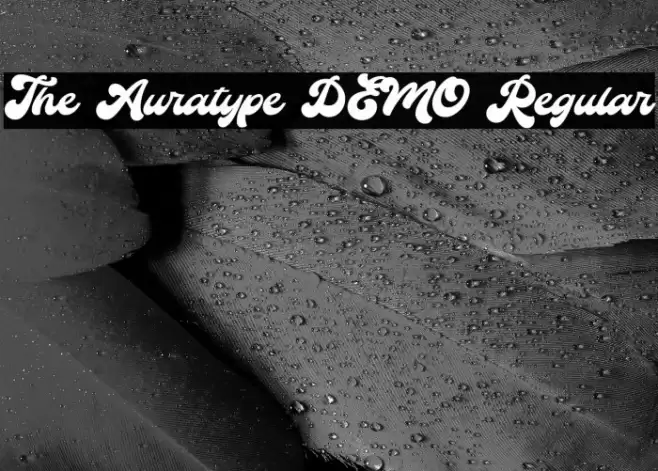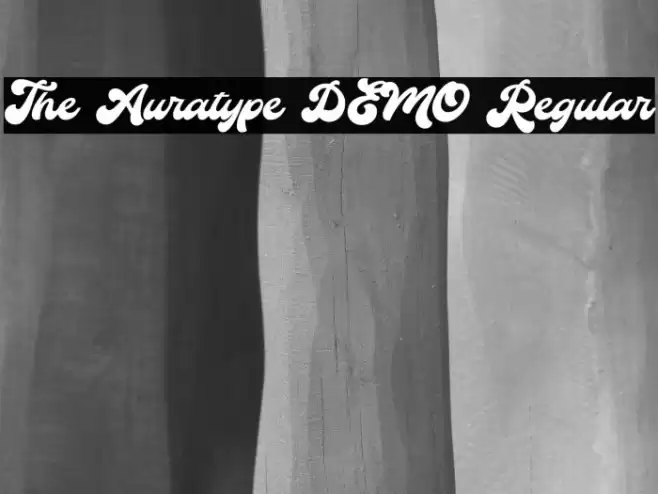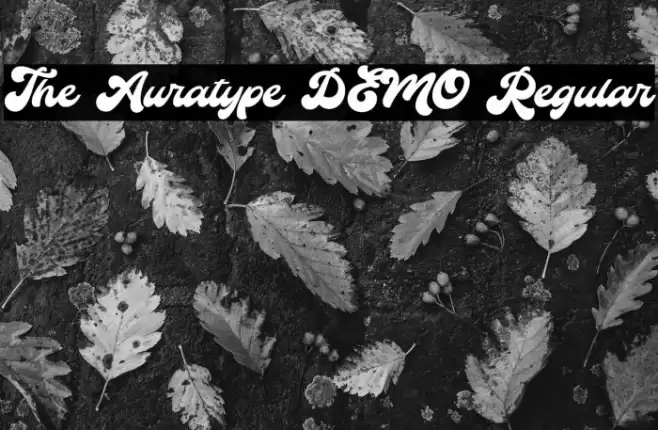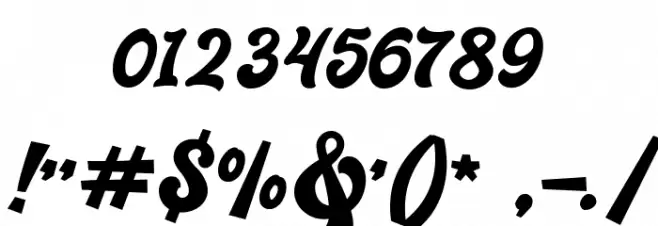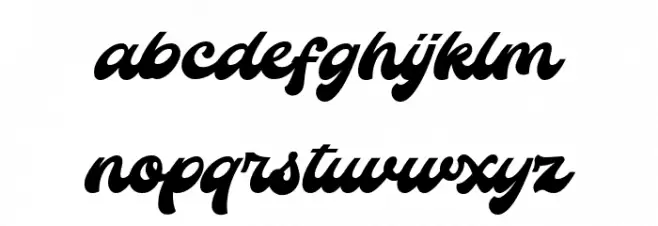
The Auratype DEMO Regular Descripción
- ( The Auratype is retro and classic typeface who inspired by the 60s - 80s designs with more unique explored style like swosh and alternate character. This font made from manual sketch with many many scratch then finished to font. Make your designs project FREE )